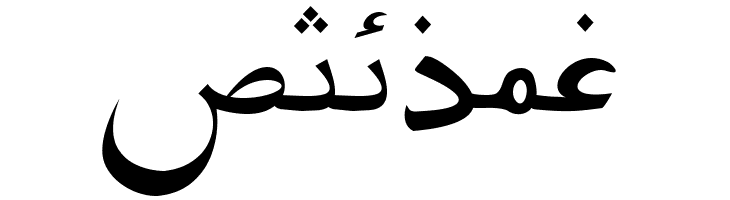
Urdu Font
A bold, modern Urdu script font with strong, consistent strokes.
Pars Ziba Draft Font
A bold, dynamic font with high contrast and artistic flair.